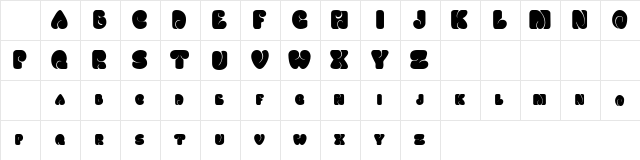
Australian Regular Font Preview
Australian Regular
Design Context for Australian Typeface
Australian is a composed and adaptable typeface that performs quietly and consistently across a wide range of design contexts.
Pro Tip: Pair Australian with a font of contrasting weight or personality to build a more expressive typographic hierarchy.